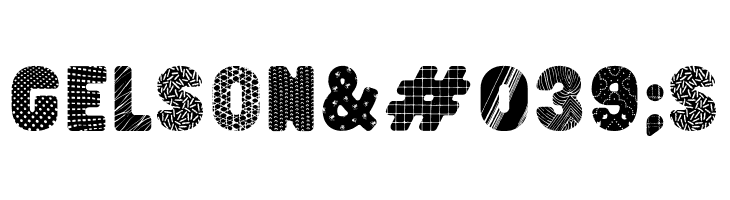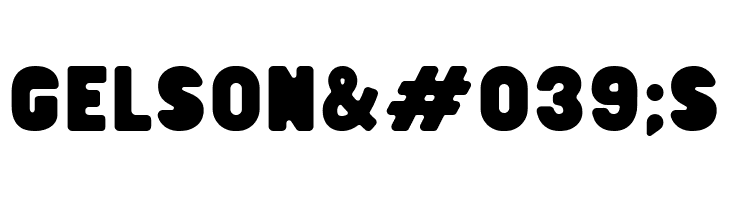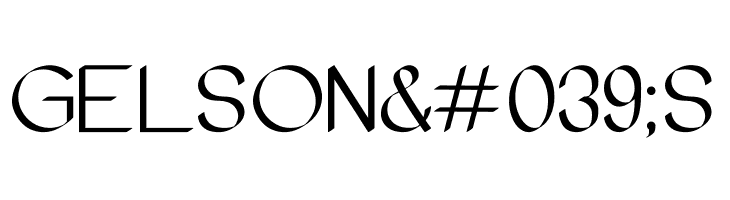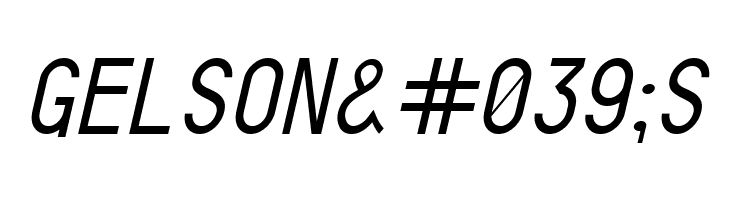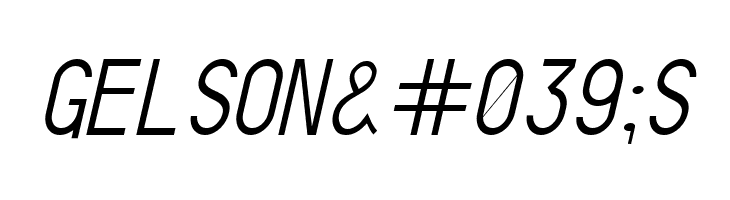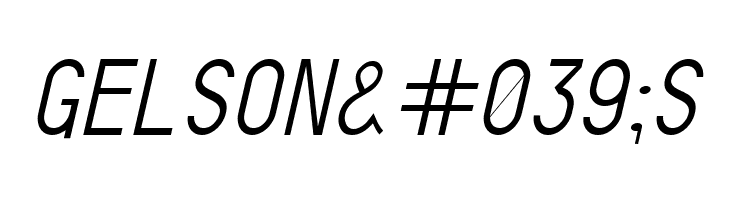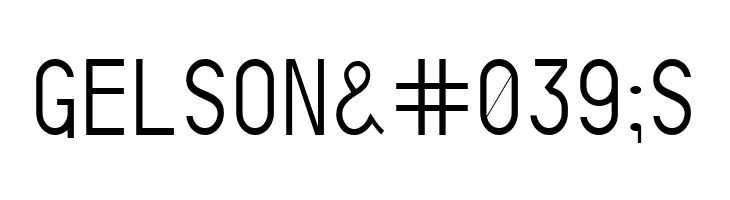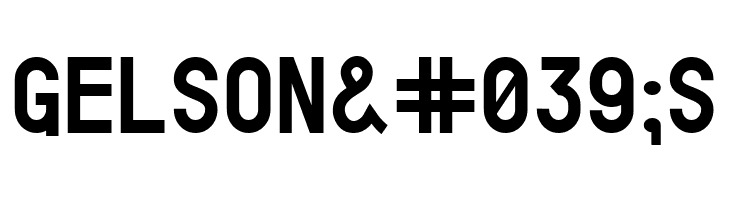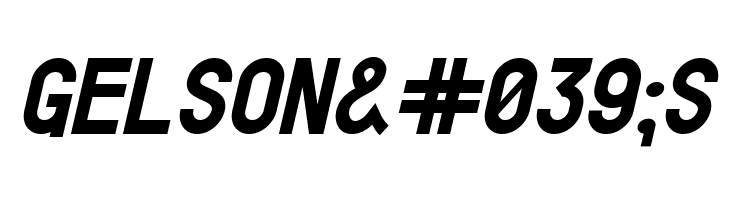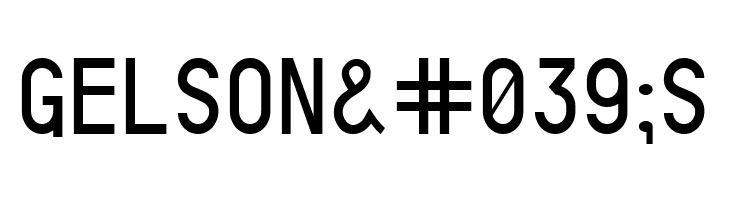
A bold, playful font with rounded edges and a chunky design.
A decorative font with bold, patterned characters ideal for playful designs.
A bold, high-contrast serif font with elegant and sophisticated features.
A charming and fluid script font with elegant curves and a cohesive flow.
A playful, casual handwritten font with smooth, rounded edges.
A playful, handwritten font with smooth curves and a friendly appearance.
A classic serif font with high contrast and decorative flourishes.
A bold, decorative serif font with elegant swash elements.
A bold, decorative font with elegant swashes and flourishes.
An elegant, decorative serif font with ornate swash elements.
A playful, hand-drawn font with tall, slender characters and a modern look.
A sketch-like, hand-drawn decorative font with an artistic and textured appearance.
A modern font with geometric shapes and elegant curves, ideal for versatile design use.
A bold, distressed font with a grunge, textured appearance.
A bold, distressed font with a vintage, rugged appearance.
A whimsical, cursive-inspired font with elegant flourishes and smooth readability.
An elegant, flowing script font with decorative uppercase and fluid lowercase letters.
A sophisticated serif font with elegant curves and flared serifs.
A bold, playful handwritten font with thick strokes and a casual style.
A modern, sans-serif font with clean lines and rounded edges.
A bold, modern sans-serif font with clean lines and geometric structure.
A sleek, modern italic font with consistent stroke widths and a dynamic appearance.
A modern, light sans-serif font with geometric shapes and low contrast.
A sleek, modern, light italic font with a streamlined and professional appearance.